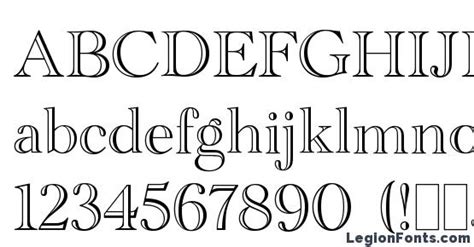
Discover the Best Similar Fonts to Academy Engraved for Your Next Design Project
Academy Engraved font is a typeface that exudes elegance and sophistication. Its bold and sharp lines create an air of authority, making it a popular choice for prestigious institutions and high-end brands. But did you know that there are similar fonts out there that can give your designs the same level of gravitas?
For instance, there's Engravers Gothic, which boasts a similar level of grandeur with its sharp, chiseled edges. Or, you could opt for the classic look of Copperplate Gothic, which has been used in formal documents and certificates for centuries.
If you're looking for something a bit more modern, you might want to try out Bebas Neue, which has a clean and minimalist look that still manages to convey a sense of power. And for those who want to add a touch of whimsy to their designs, there's always the playful charm of Lobster.
No matter what font you choose, just remember that typography plays a crucial role in creating a visual identity for your brand or institution. So take your time, explore your options, and find the one that speaks to you and your audience.
The Beauty of Academy Engraved Font Similar
Typography is an important element in design, and choosing the right font can make or break a project. One font that has stood the test of time is Academy Engraved. This elegant serif font has been around since the 19th century and is still widely used today. However, for those who are looking for a similar font that can be used as an alternative, Academy Engraved font similar options are available.
What is Academy Engraved?
Academy Engraved is a classic font that was first introduced in 1914 by the American Type Founders (ATF). It was designed by Morris Fuller Benton, one of the most celebrated type designers of the early 20th century. This font is a perfect example of the Art Nouveau style that was popular during that time. It features a condensed and engraved design that is perfect for titles, headlines, and logos.
Why Choose Academy Engraved Font Similar Options?
What Are Some Academy Engraved Font Similar Options?
There are many Academy Engraved font similar options available, each with its own unique features. Some of the most popular options include:
- Cinzel: This font is a modern interpretation of classic Roman letterforms. It has a bold and elegant design that is perfect for titles and headlines.
- Roboto Slab: This font is a slab serif typeface that is both modern and classic. It has a strong and sturdy design that is perfect for logos and branding.
- Bitter: This font is a contemporary serif typeface that was designed for on-screen reading. It has a clean and simple design that is perfect for websites and digital projects.
How to Choose the Right Academy Engraved Font Similar Option
When choosing an Academy Engraved font similar option, there are a few things to consider. First, think about the purpose of your project and what aesthetic you are trying to achieve. If you want a classic and elegant look, then Cinzel or Roboto Slab may be the right choice. If you want a more modern and clean look, then Bitter may be the better option.
Another thing to consider is the readability of the font. Make sure that the font is easy to read at different sizes and on different backgrounds. You may also want to test the font on different devices to ensure that it looks good on both desktop and mobile screens.
In Conclusion
Academy Engraved font similar options offer a great alternative for those who want a similar look to Academy Engraved but do not want to pay a premium price. With many options available, you can find the perfect font for your project that matches your aesthetic and is easy to read. Whether you choose Cinzel, Roboto Slab, or Bitter, you can create a beautiful design that stands out and makes an impact.
The Classic Elegance of Academy Engraved Font
Academy Engraved font is a timeless typeface that exudes sophistication and elegance. It is a calligraphic delight, with its cursive perfection and artistic flourish. This majestic typeface is perfect for formal invitations and other high-end printed materials.
A Timeless Typeface: Academy Engraved Font
The regal charm of Academy Engraved font makes it a favorite among the elite. Whether used in wedding invitations, business cards, or other printed materials, this font always adds a touch of class and elegance to any design. Its bold and beautiful strokes make it stand out, while its classic appeal ensures that it will remain a favorite for years to come.
- Edwardian Script ITC: This font is similar to Academy Engraved in that it has a sophisticated, cursive look. However, Edwardian Script ITC is more delicate and ornate.
- Bickham Script Pro: This font is similar to Academy Engraved in that it has a classic, elegant feel to it. However, Bickham Script Pro has a more flowing, handwritten look.
Overall, these fonts are great alternatives to Academy Engraved for those who are looking for a similar style. Each font has its own unique qualities and can be used for a variety of design projects.